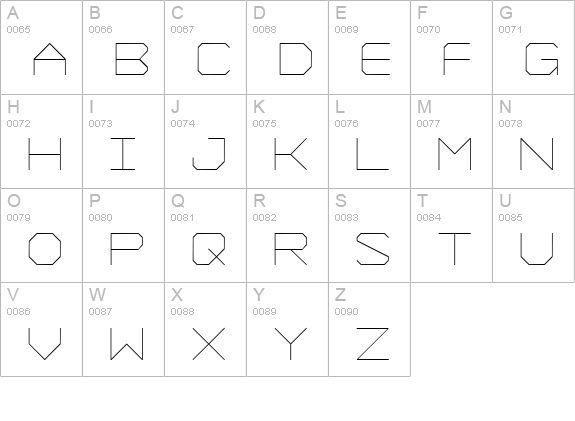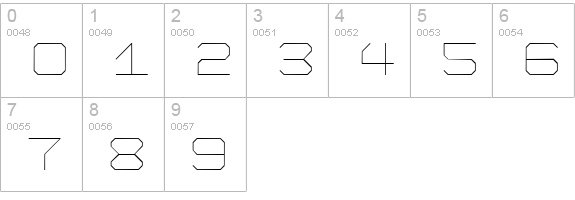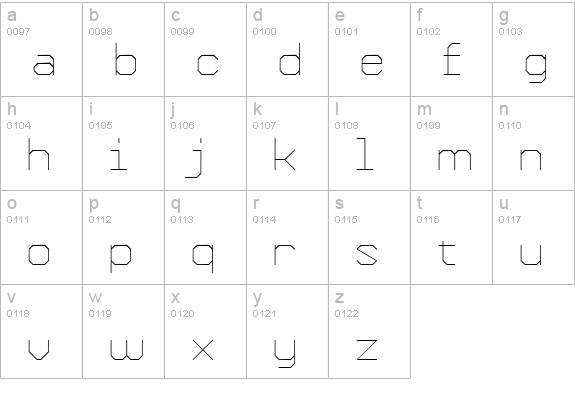
Formation ExtraLight is an airy, ultra-refined variant in the Formation typeface family \xE2\x80\x94 well suited to minimalist headlines and refined display use.
The Formation ExtraLight font is a sleek and modern typeface that exudes elegance and sophistication. With its delicate and stylish design, this font is perfect for adding a touch of refinement to any project. The Formation ExtraLight font features thin, graceful lines that give it a sense of lightness and airiness, making it ideal for use in a variety of design applications. Best of all, the Formation ExtraLight font is available for free download at FontsMarket.com. This means that you can easily access this stunning typeface without any cost, allowing you to enhance your creative projects with ease. Whether you're designing a website, creating a logo, or working on a print project, the Formation ExtraLight font is sure to elevate your work with its sophisticated charm. Download it today and add a touch of elegance to your designs!